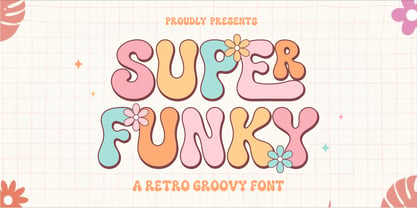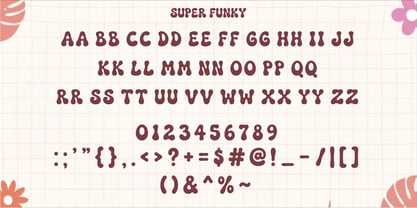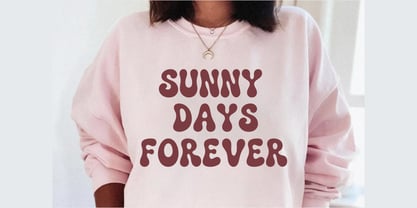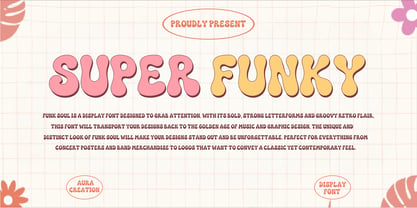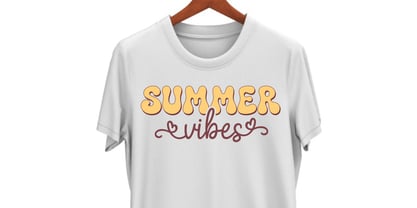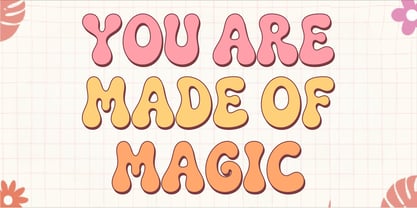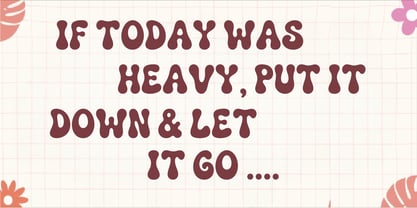
Super Funky Vibes
by Type Haven Studio
The Super Funky Vibes Font Family was designed by Kawsar Chowdhury and published by Type Haven Studio. Super Funky Vibes contains 1 styles. More about this family
Super Funky Vibes is a bold retro groovy display font that features chunky curves, playful shapes, and a cheerful vintage personality. Inspired by the iconic design styles of the 60s and 70s, this font infuses a fun, nostalgic, and energetic feel into every project. It is perfect for T-shirts, posters, logos, branding, packaging, social media graphics, stickers, invitations, album artwork, headlines, and more. Super Funky Vibes is crafted to make your words stand out with a colorful, funky, and eye-catching retro vibe.
Designers: Kawsar Chowdhury
Foundry: Type Haven Studio